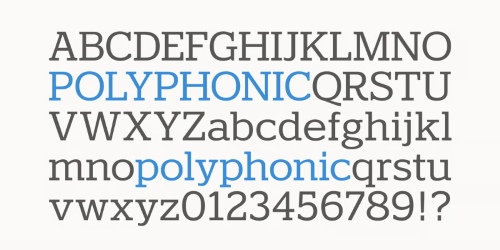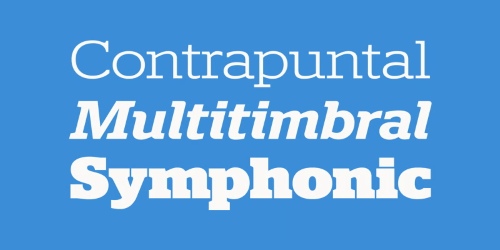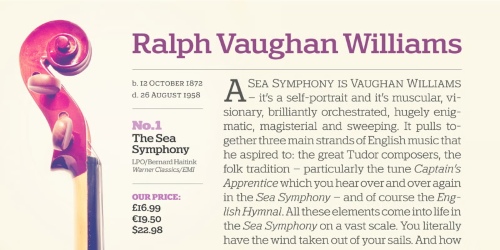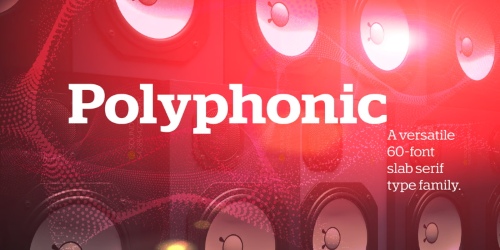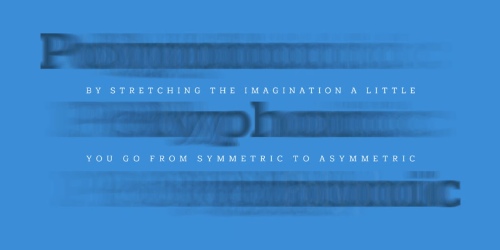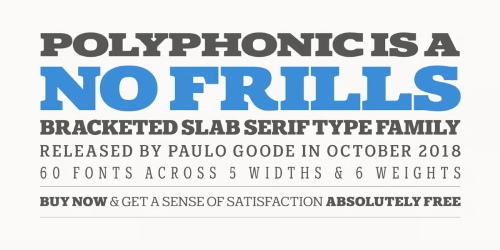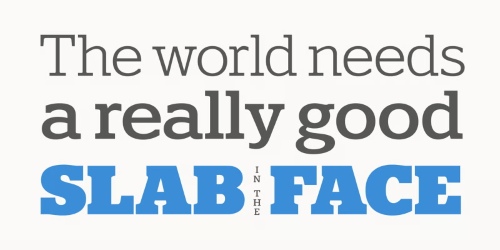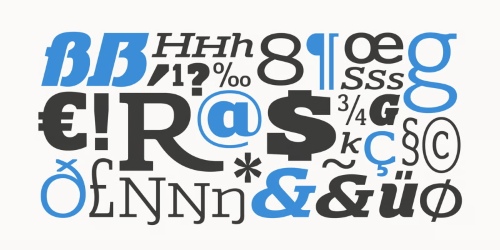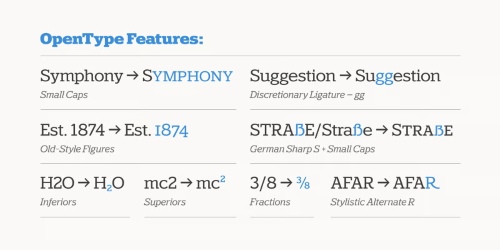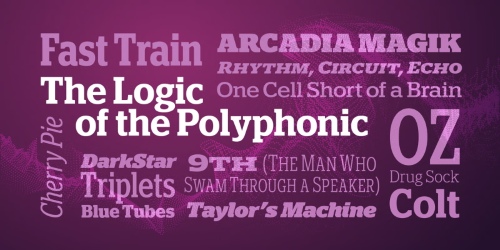
Polyphonic - 60 Styles Extended Latin SuperFamily
A Versatile 60-Font Slab Serif Type Family
- Polyphonic is a highly versatile slab serif typeface comprising 60 fonts across 6 weights and 5 widths. It is a no-nonsense, clear and legible type family whose multiple voices will suit numerous typographic applications. Its overall personality is polite, understated and formal – there are no frills with this typeface, it conveys messages simply and efficiently without hyperbole. Polyphonic’s lighter weights are great for body text and its heavier weights the perfect complement for branding, titles, headings and logotype options. Small Caps are included with each font and available with one click, as are Old Style Figures, there is extensive language support too – European/Latin only.